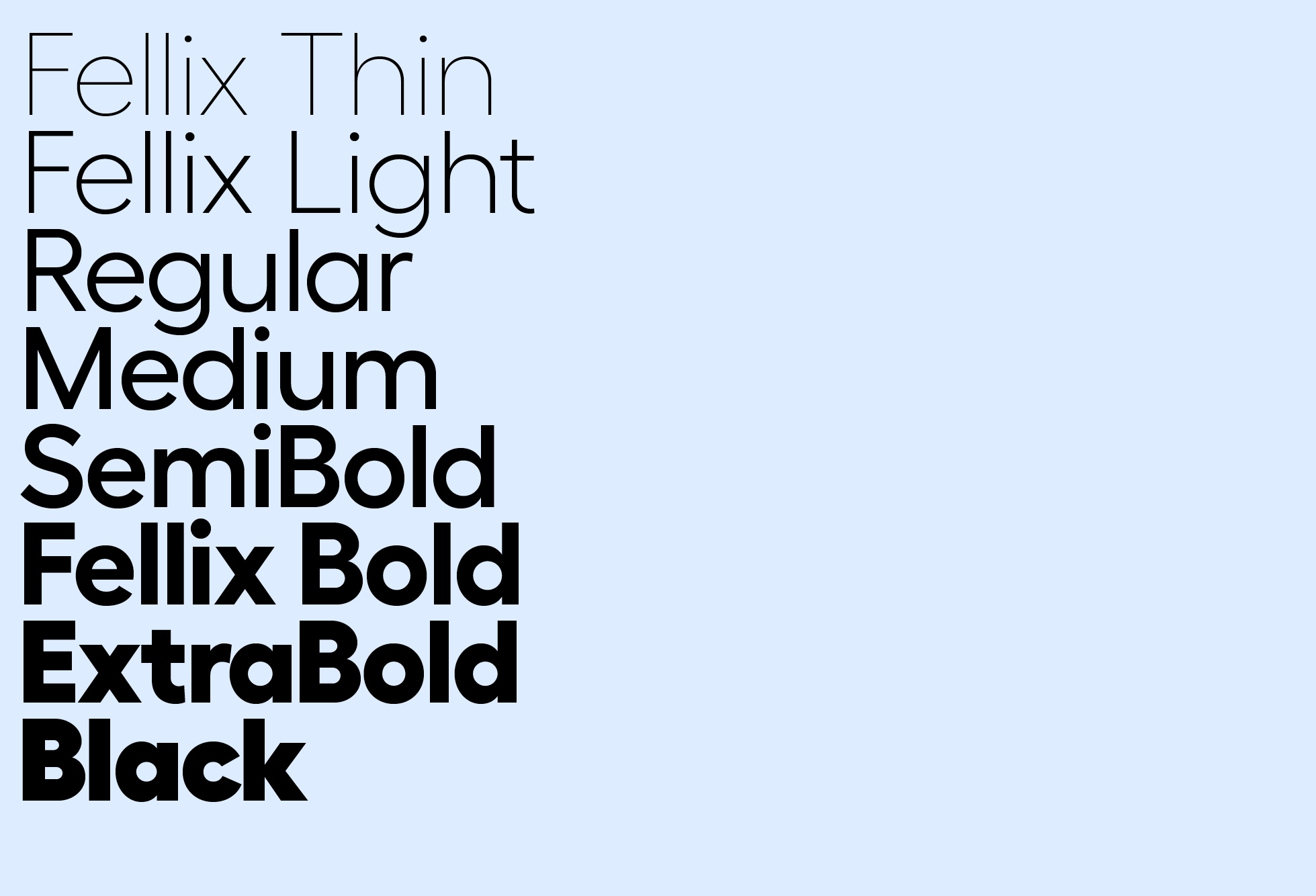
Fellix Font
Fellix Font finds perfect application in modern tech startups, innovative app interfaces, contemporary web design, creative agency branding, digital marketing campaigns, minimalist logo design, startup pitch decks, software documentation, social media graphics, and cutting-edge product packaging requiring fresh, forward-thinking aesthetics.
What makes Fellix Font exciting is its dynamic blend of geometric precision and organic warmth that creates an instantly recognizable modern personality perfect for today's digital landscape. This innovative typeface features clean, contemporary letterforms with subtle humanistic touches that convey approachability without sacrificing professionalism. The font's versatile character and technical excellence make it ideal for brands seeking to communicate innovation, reliability, and forward-thinking vision while maintaining strong readability across all digital platforms.
Fellix Font belongs to the contemporary sans-serif font family, specifically designed for modern digital applications and brand identity systems. This font family typically includes thin, light, regular, medium, bold, and black weights with corresponding oblique styles, providing designers with comprehensive typographic tools for creating cohesive visual hierarchies in complex projects.
Perfect for UX/UI designers, brand strategists, digital marketers, and creative professionals in technology sectors, this typeface excels in user interfaces, corporate communications, and digital branding applications. The font's technical precision extends across web platforms, mobile applications, digital signage, and contemporary print materials where modern clarity is essential.
The expertly engineered letterforms maintain superior legibility at all sizes while expressing distinctive contemporary character. From detailed mobile app interfaces to large-scale digital advertising campaigns, Fellix Font performs flawlessly while preserving its modern aesthetic and professional appeal.
Contemporary designers appreciate how this font balances geometric structure with human warmth, creating designs that feel both cutting-edge and accessible. Its extensive language support and OpenType features ensure seamless integration into international projects and complex digital ecosystems.